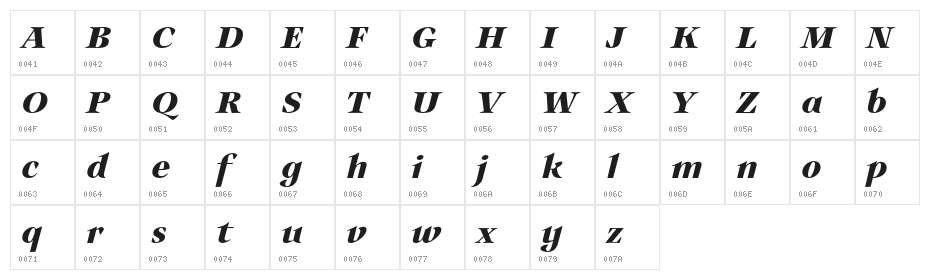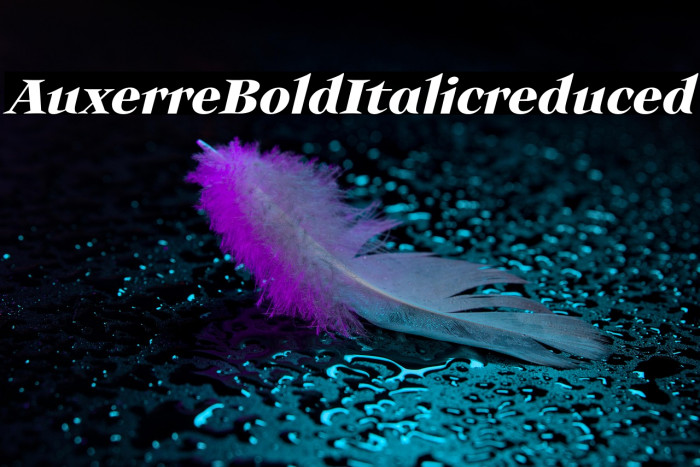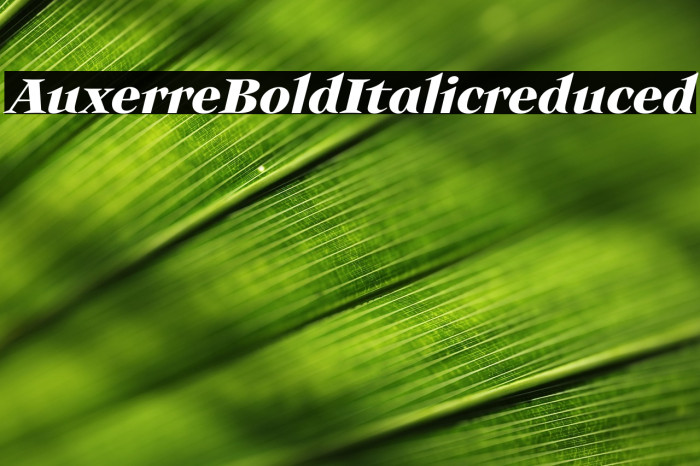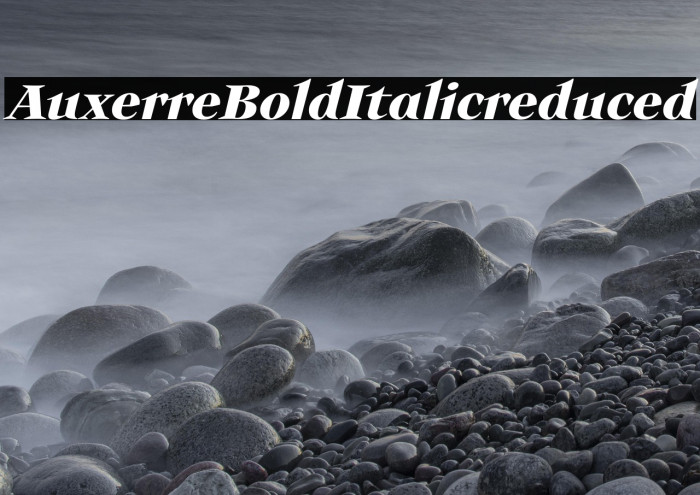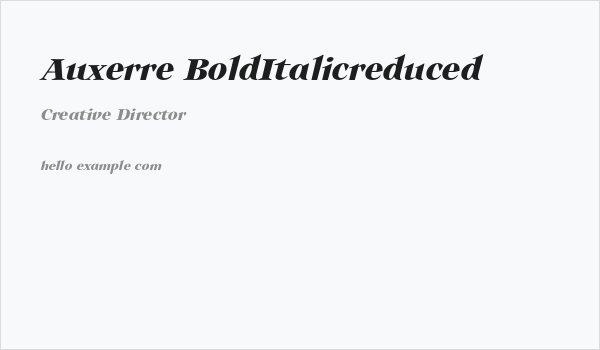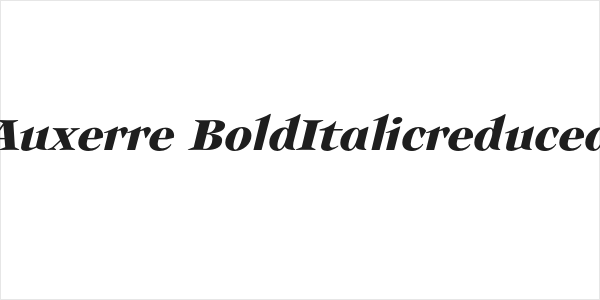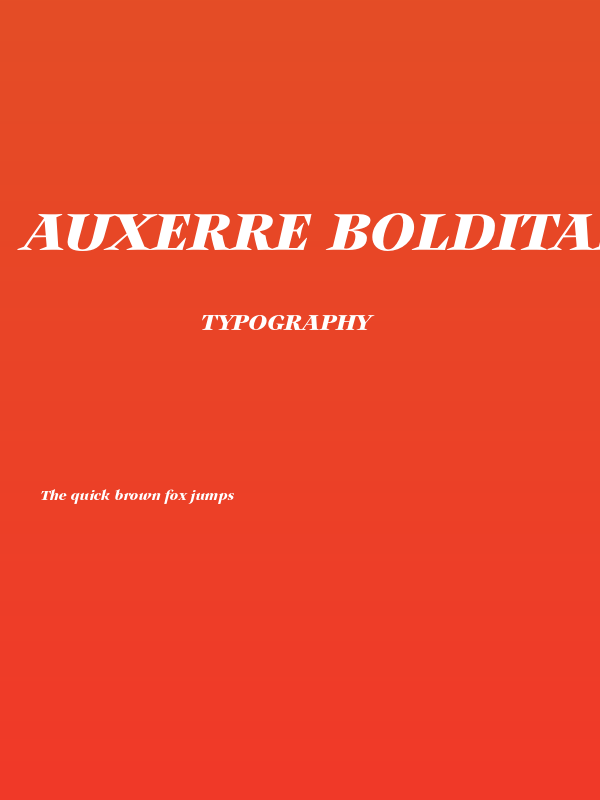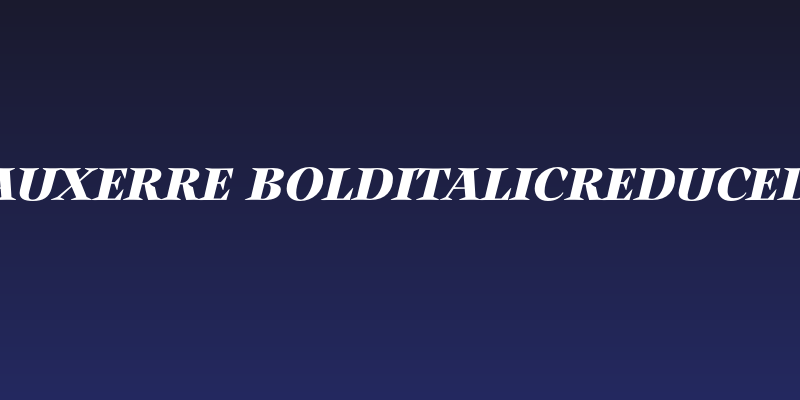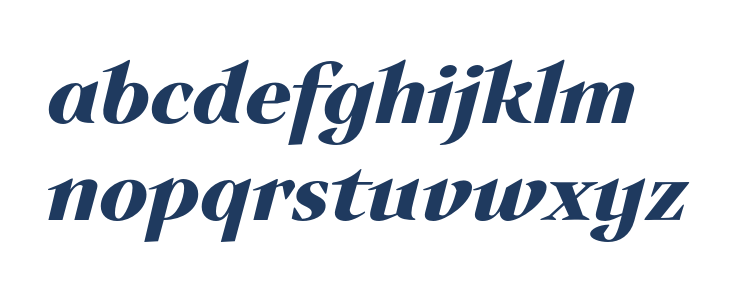
Auxerre-BoldItalicreduced Font
Auxerre-BoldItalicreduced Description
This font presents a bold and italicized style, characterized by its strong and dynamic presence. The letters are elegantly slanted, adding a sense of movement and sophistication. The strokes are thick and consistent, providing a robust and confident appearance. The serifs are pronounced, enhancing the classic feel while maintaining a modern edge. This combination of boldness and italics makes it suitable for attention-grabbing headlines and impactful designs. The overall design is balanced, with a slight emphasis on the vertical strokes, contributing to its assertive look.